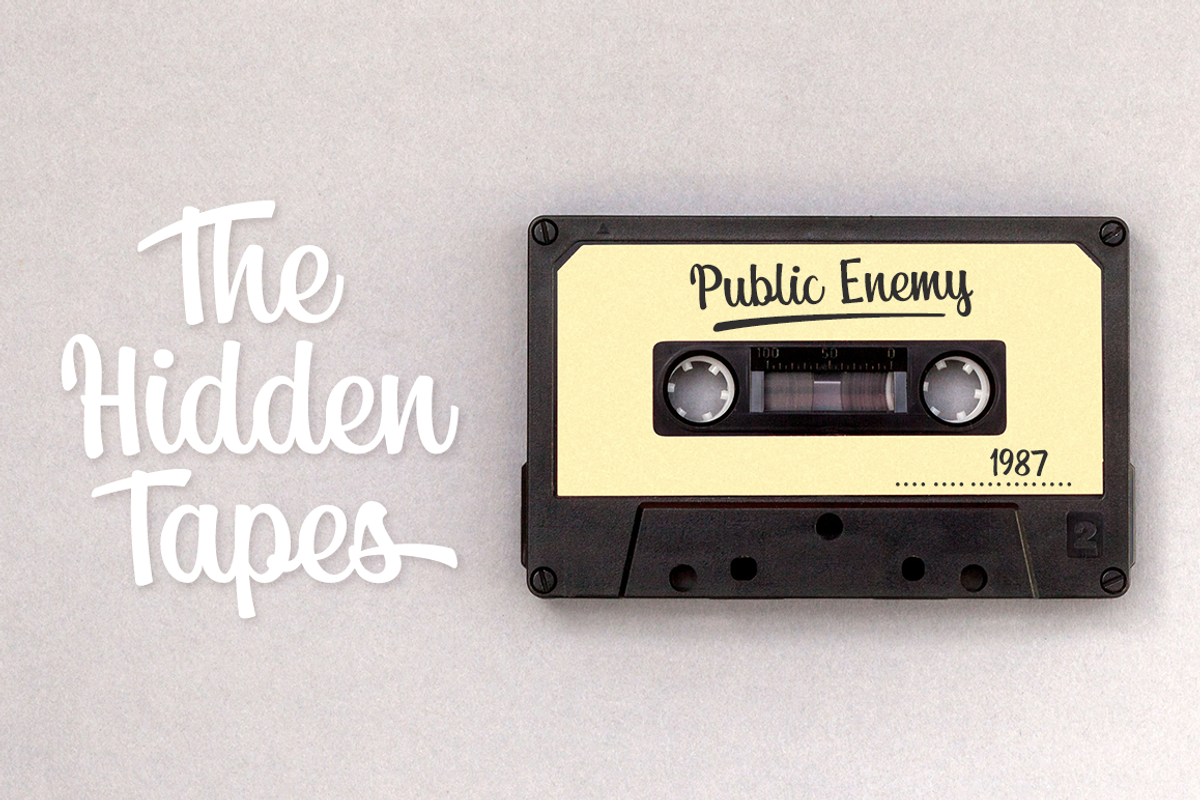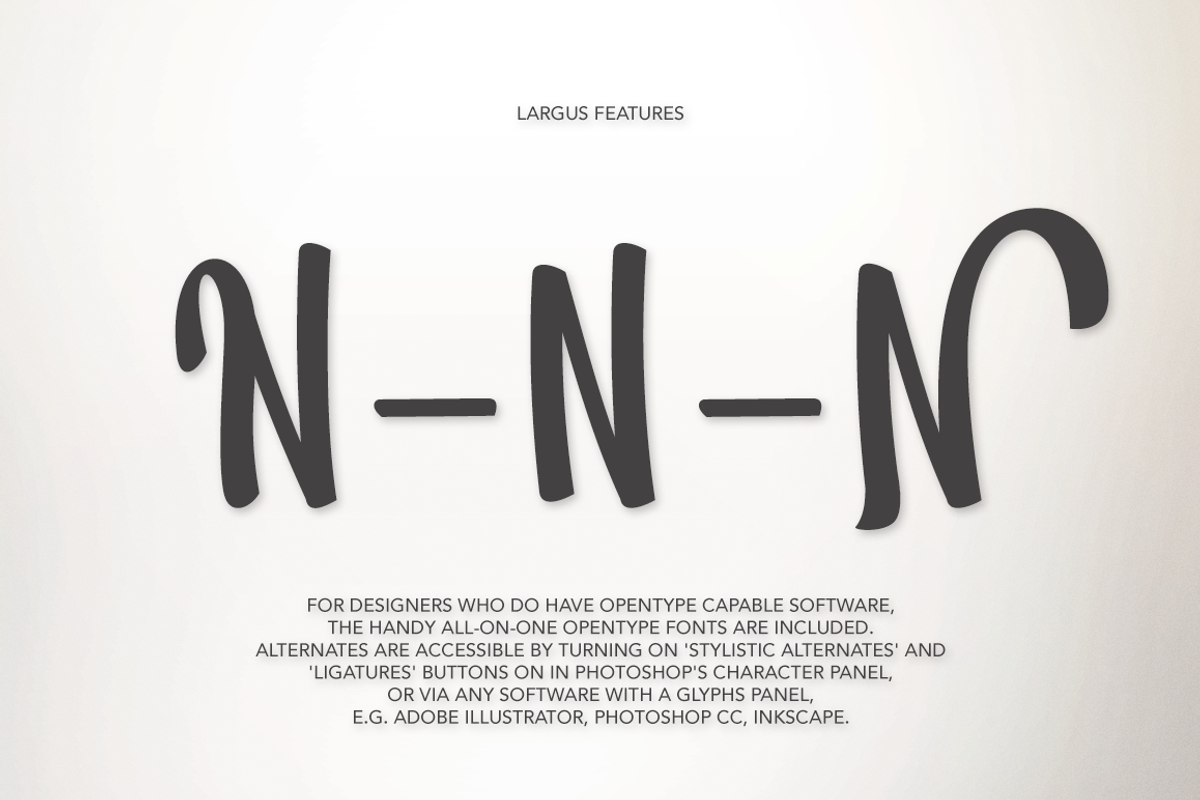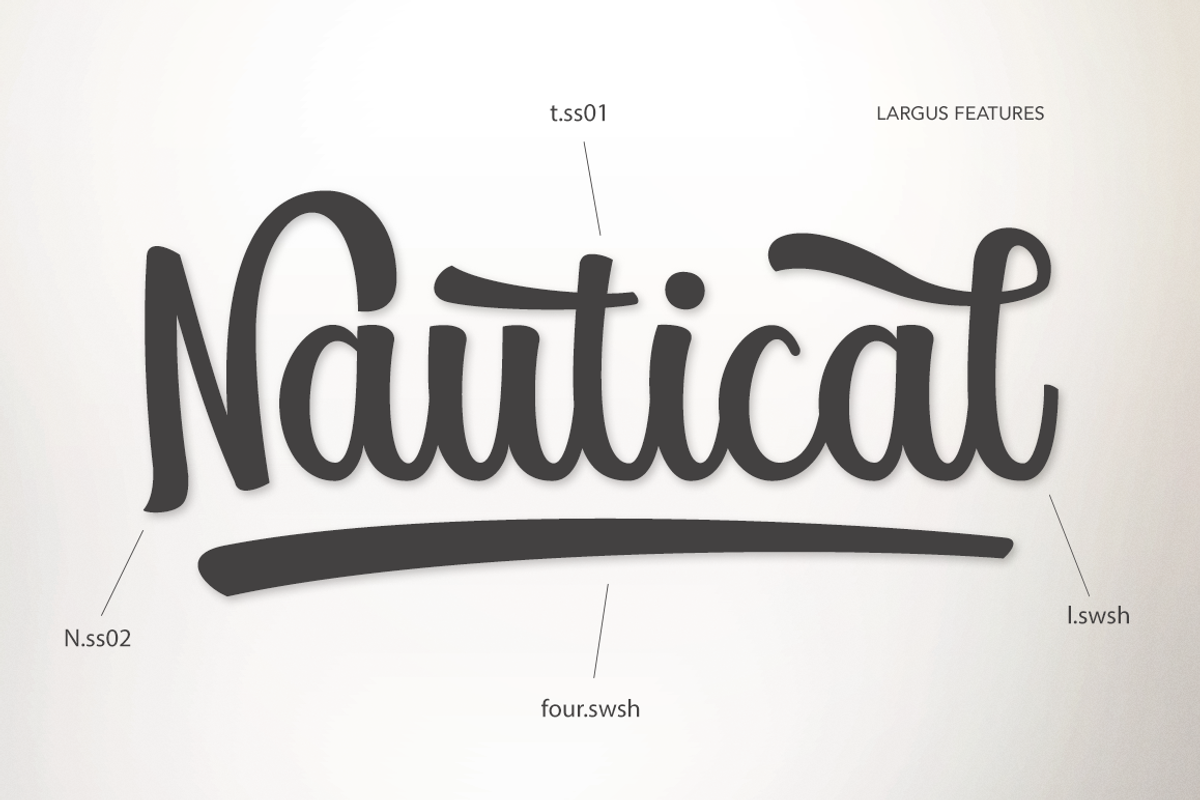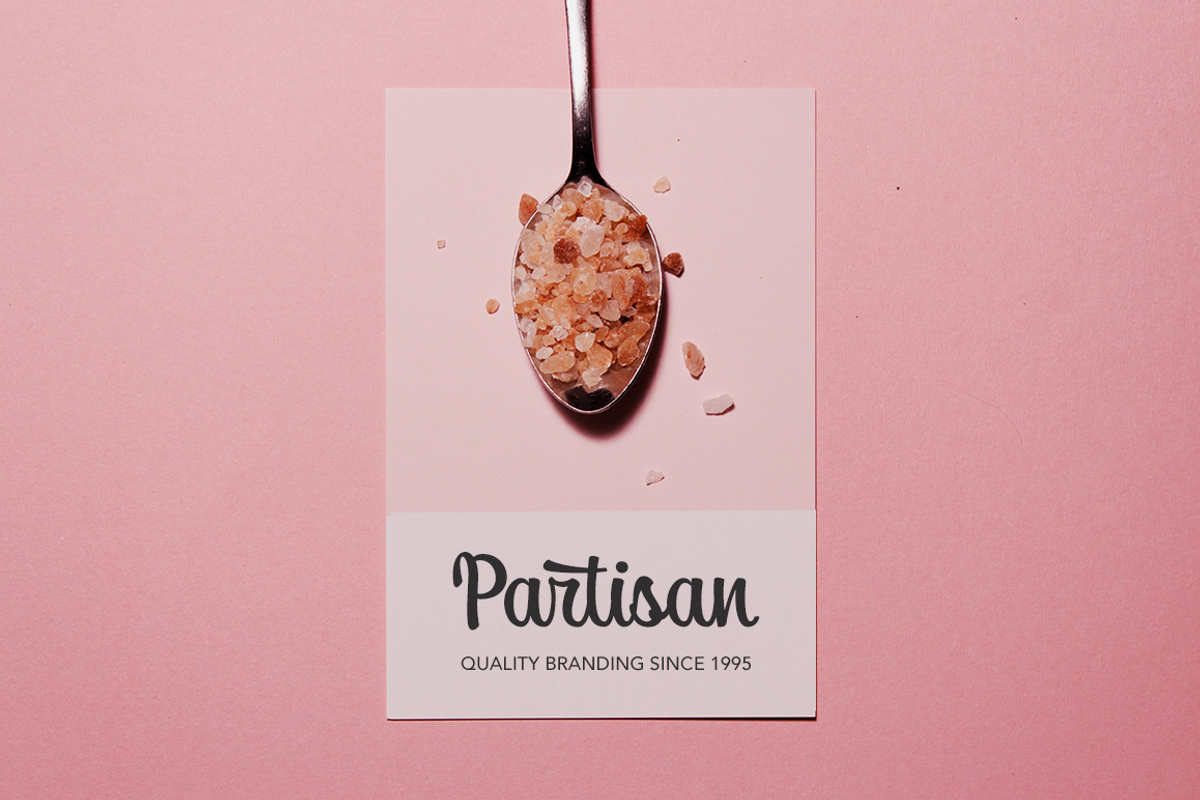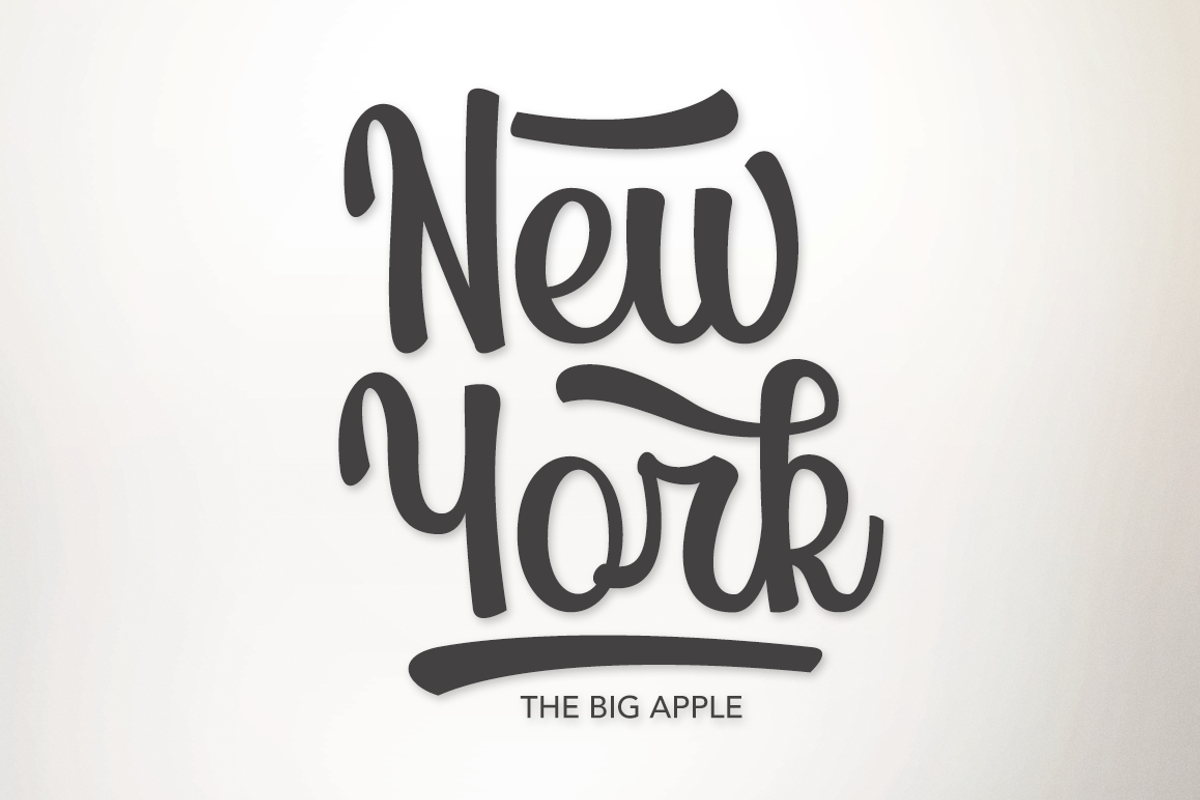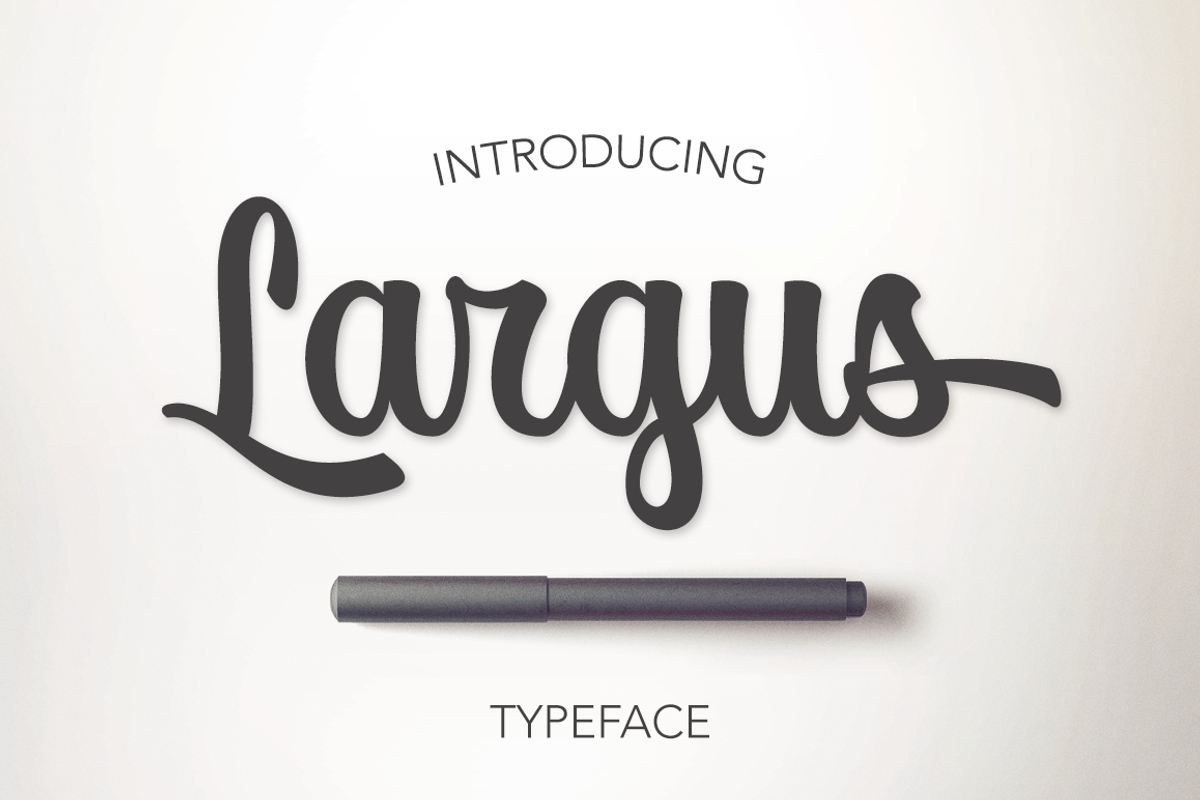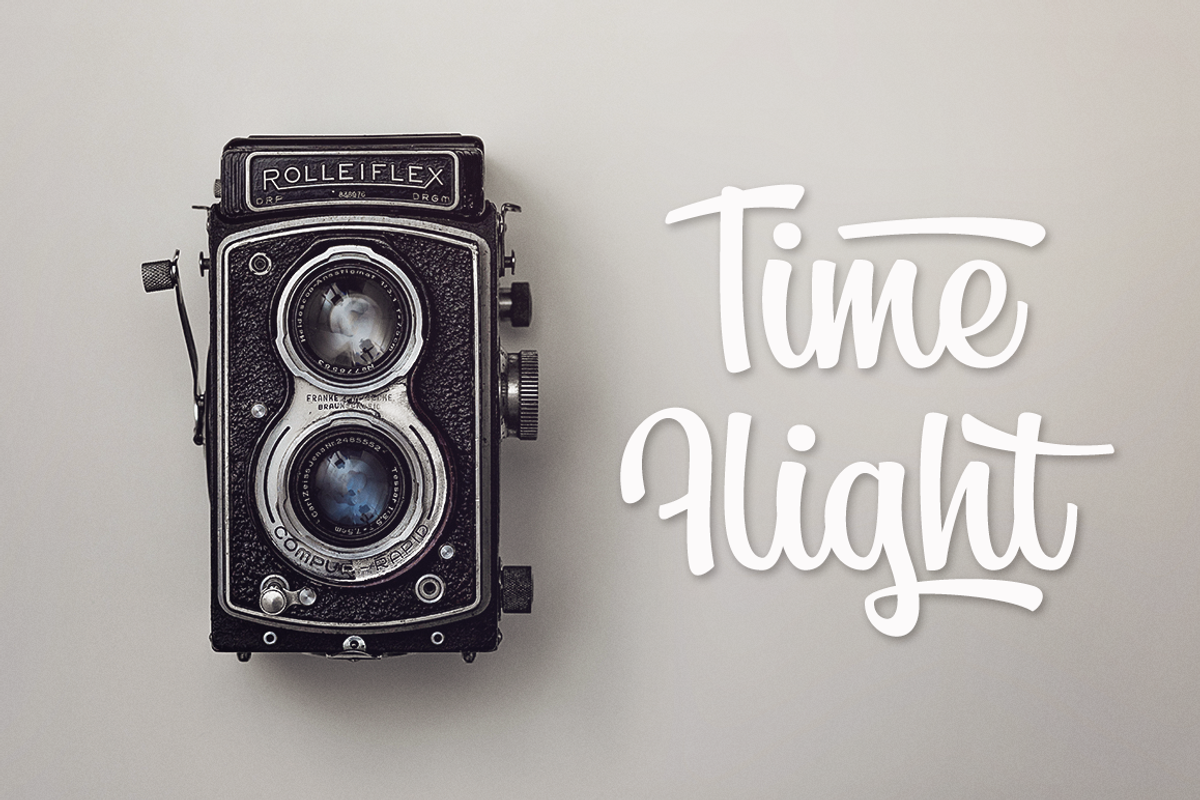
Largus Typeface
Largus Typeface - a new fresh handmade calligraphy font.
This fonts is ideal for branding and decorate your any project. This fonts are perfect for wedding invitation or your blog. Also with their help, you can create a logo or beautiful frame for your home. Or just use for your small business, book covers, stationery, marketing, magazines and more.
Why Largus Typeface is worth a look
Largus Typeface by Larin Type Co. fits naturally into Branding, posters, packaging, typography.